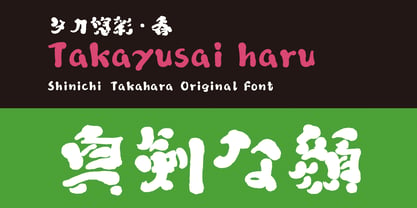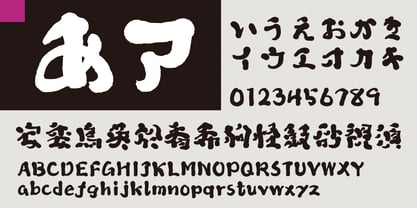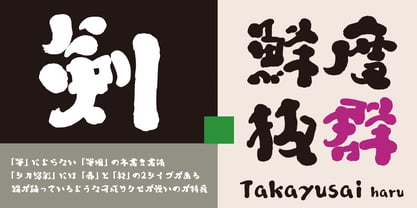
Takayusai-Haru
It is one of the “Takayu” series and is a handwritten typeface that is described as “brush-style” but does not use a “brush”. There are two types of “Takayusai”, ‘Haru’ and “Aki”. The stronger the style, the more individualistic and impressive it is. The length of the lines, whether they appear or not, etc., are not a concern, and the typeface is free.